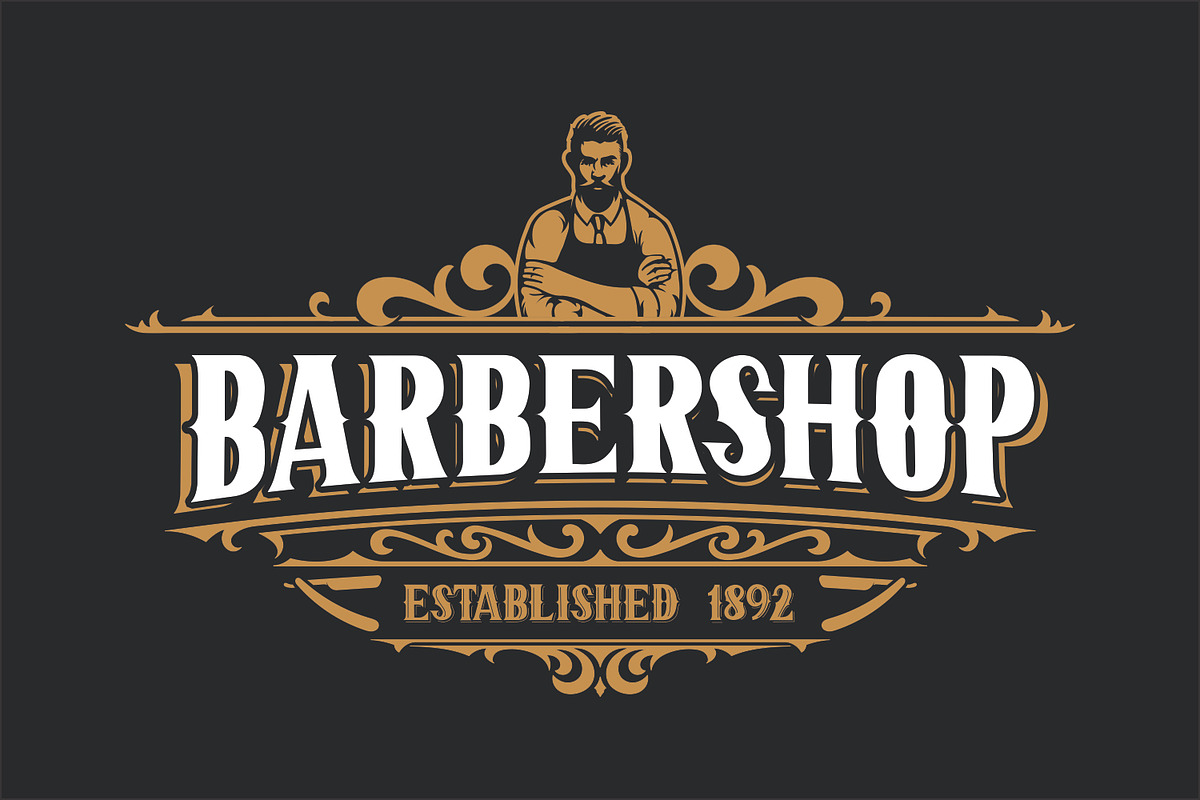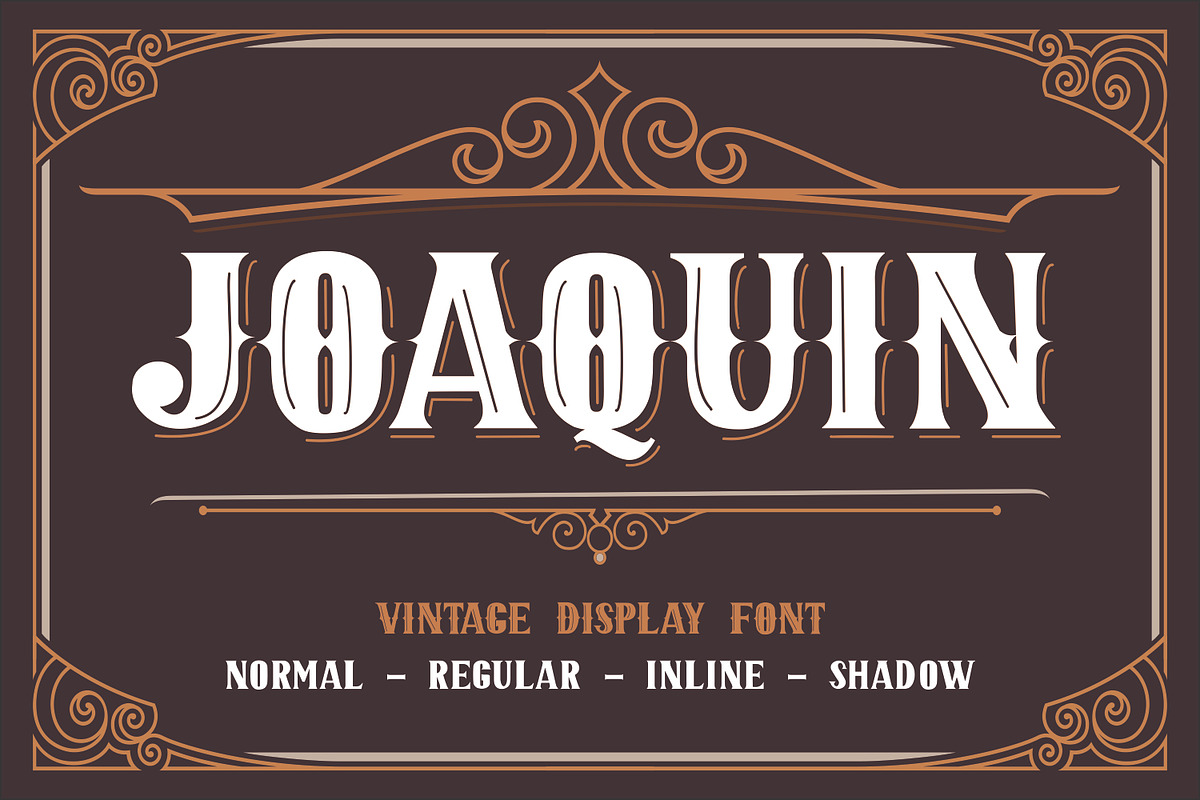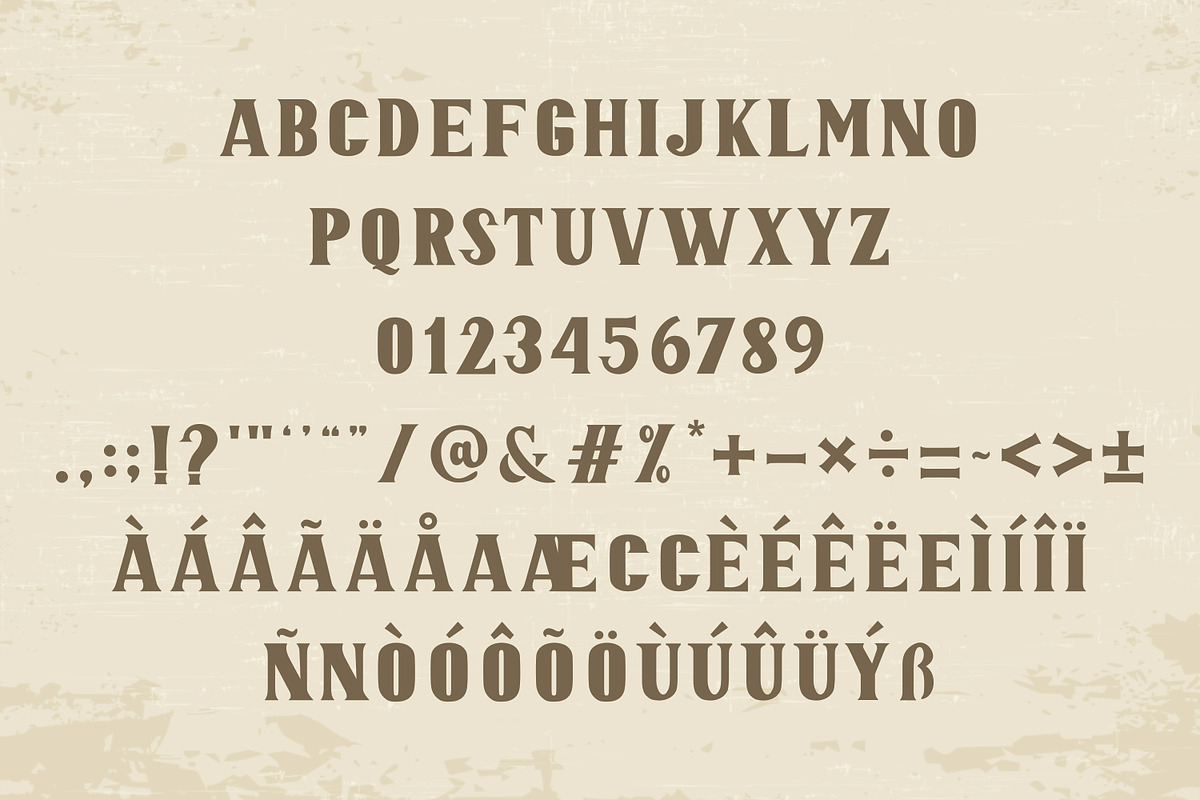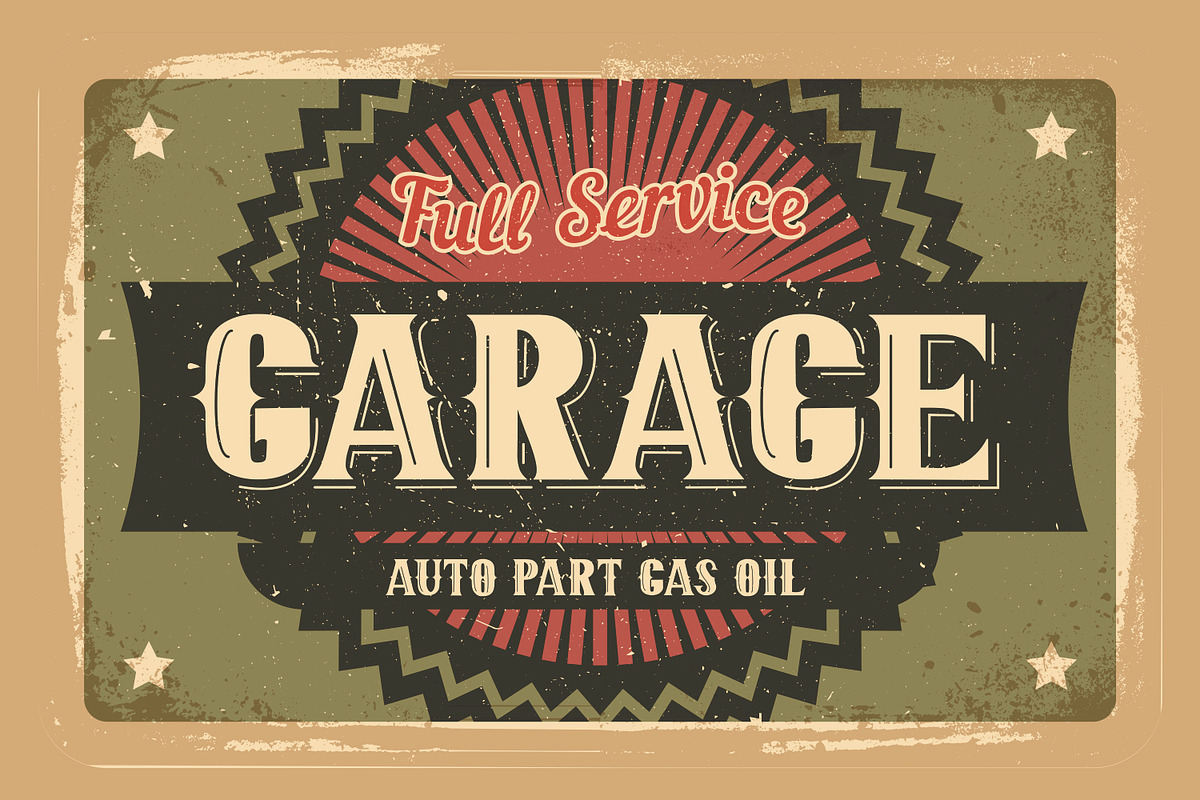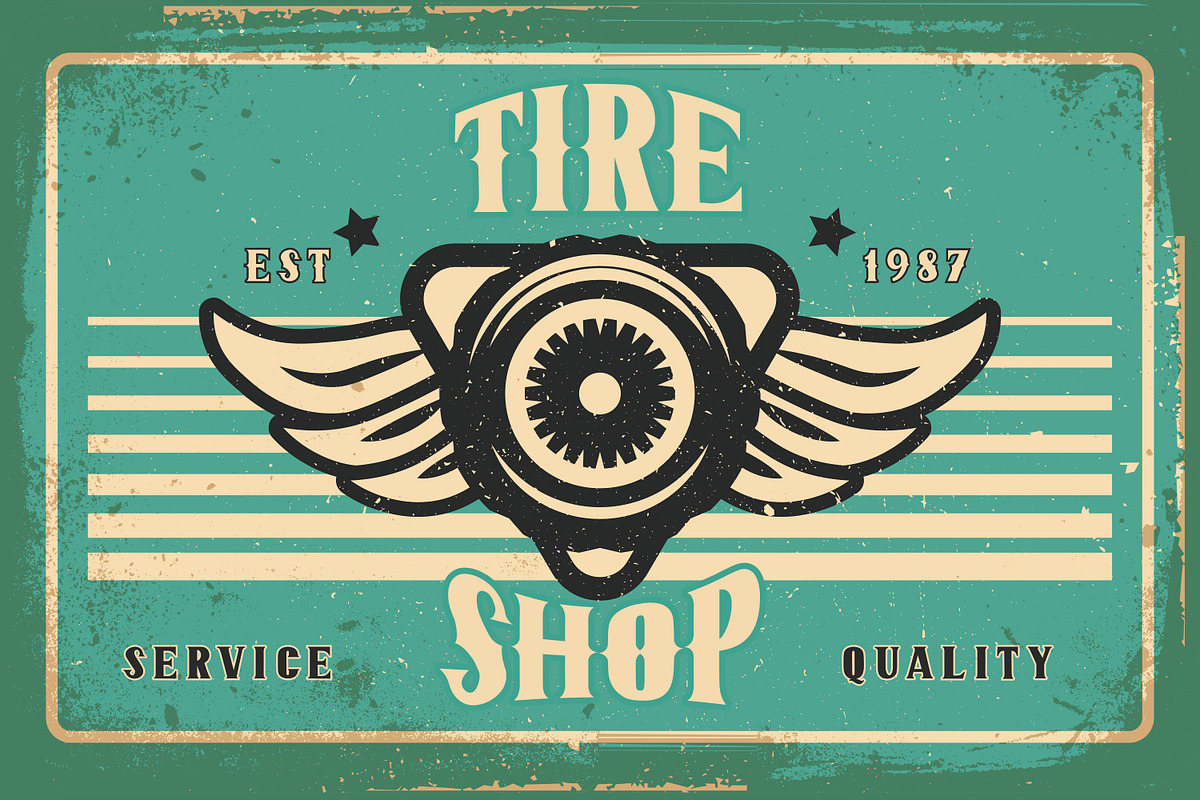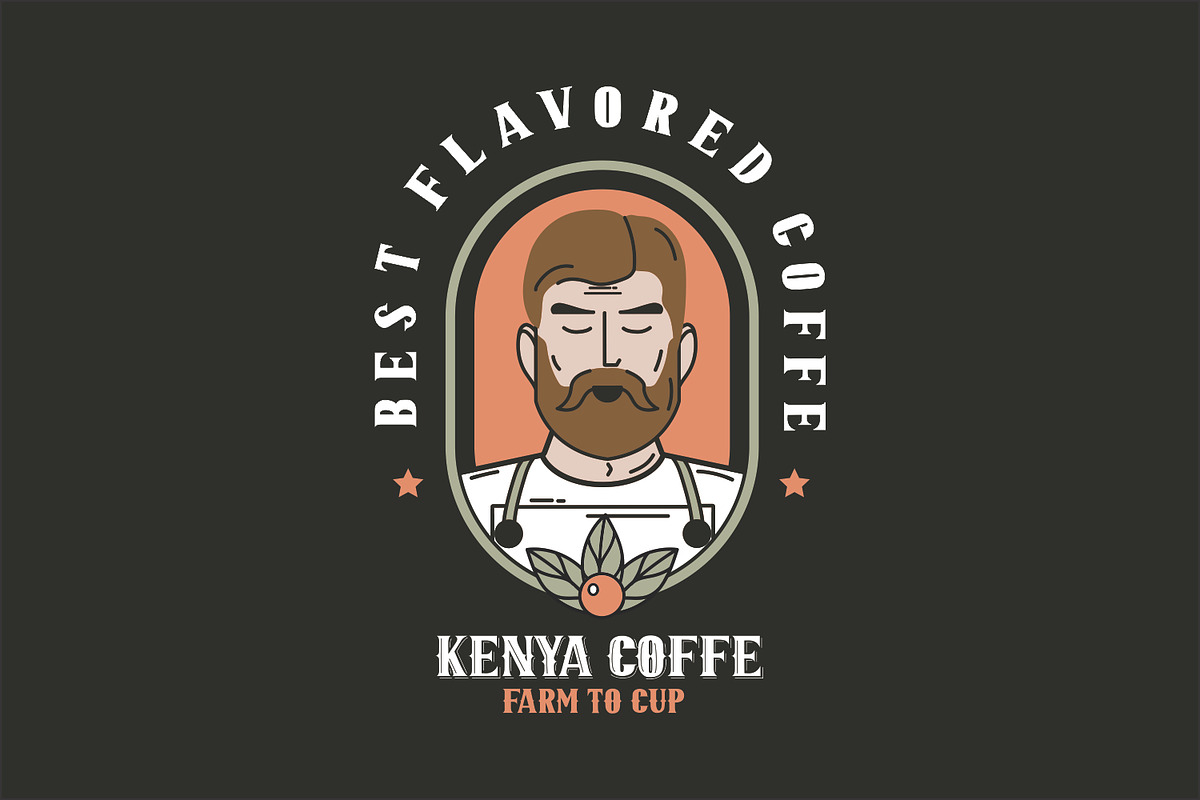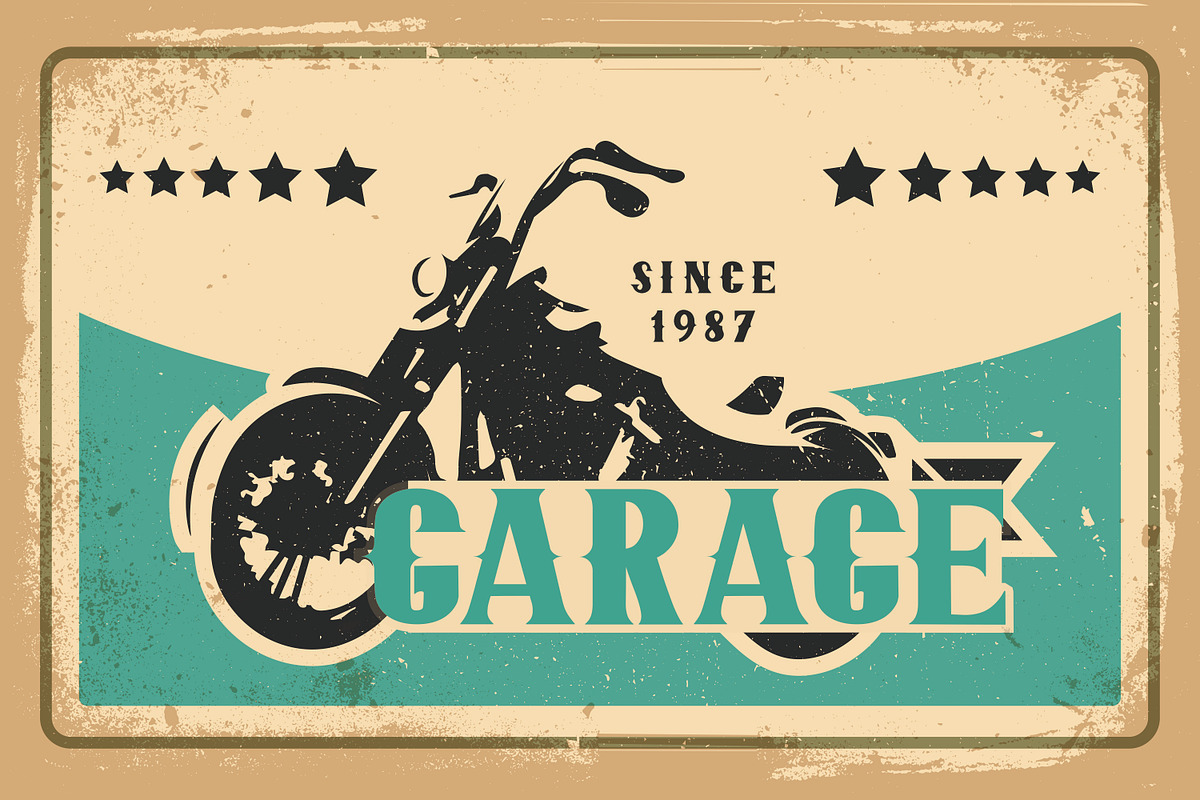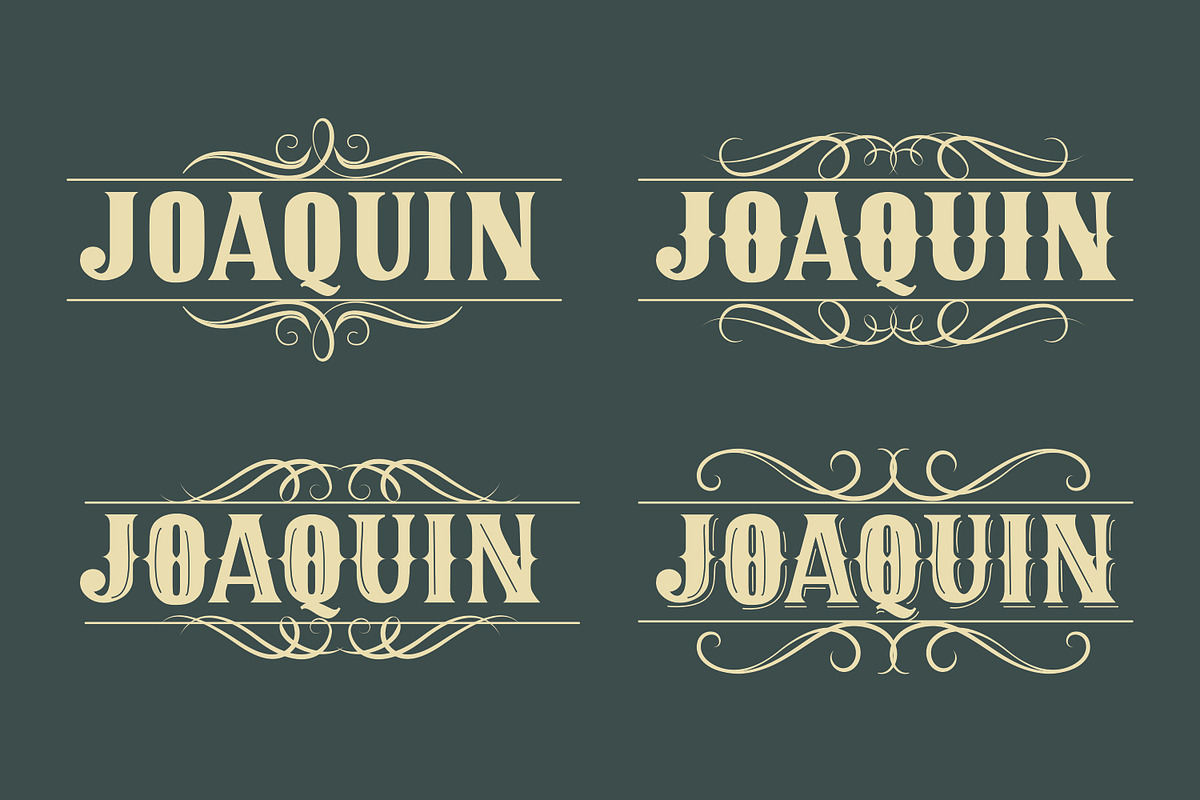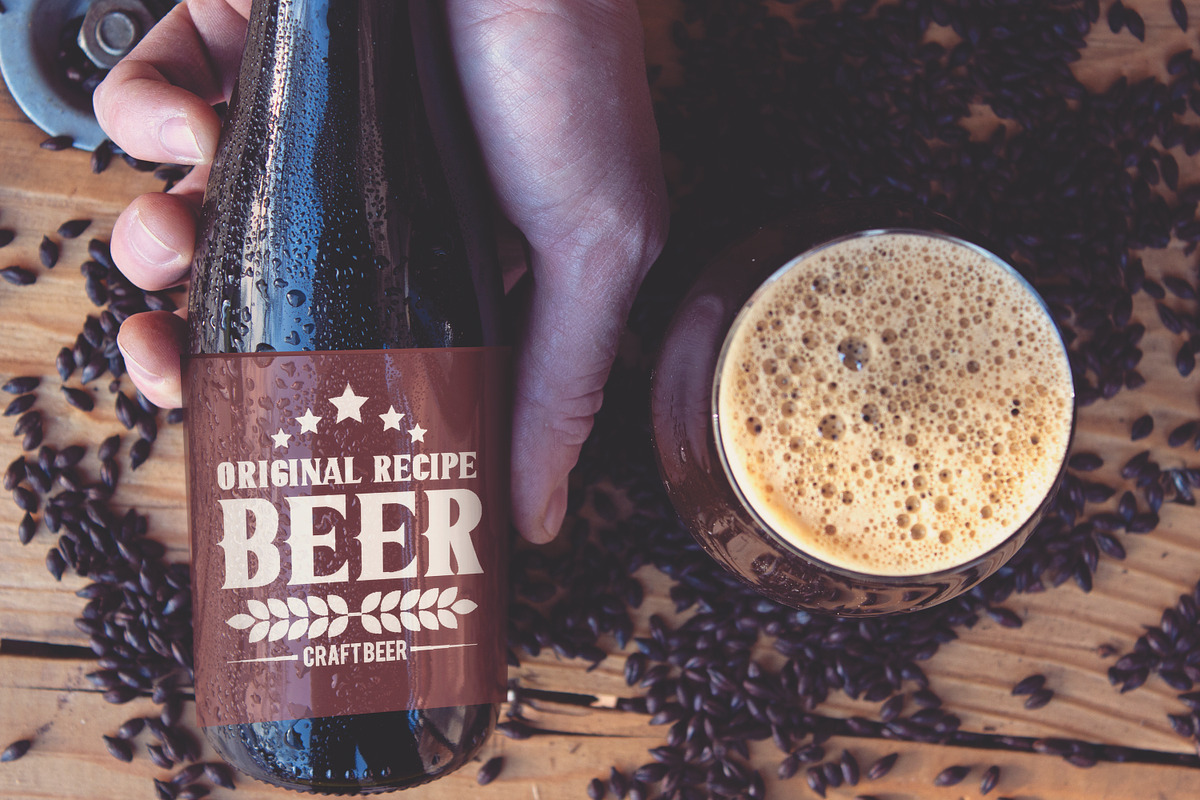
JOAQUIN
JOAQUIN is a vintage font family. This font retro look and style inspired from many vintage packaging and from typographic cover lettering.
It is perfect for vintage logo design, label, poster, signage, t-shirt, storefront, headlines or packaging design. greeting cards and logotype. JOAQUIN includes 4 different styles ; Normal, Regular, Inline, Shadow. So you can combine them with each other and get fancy headlines.